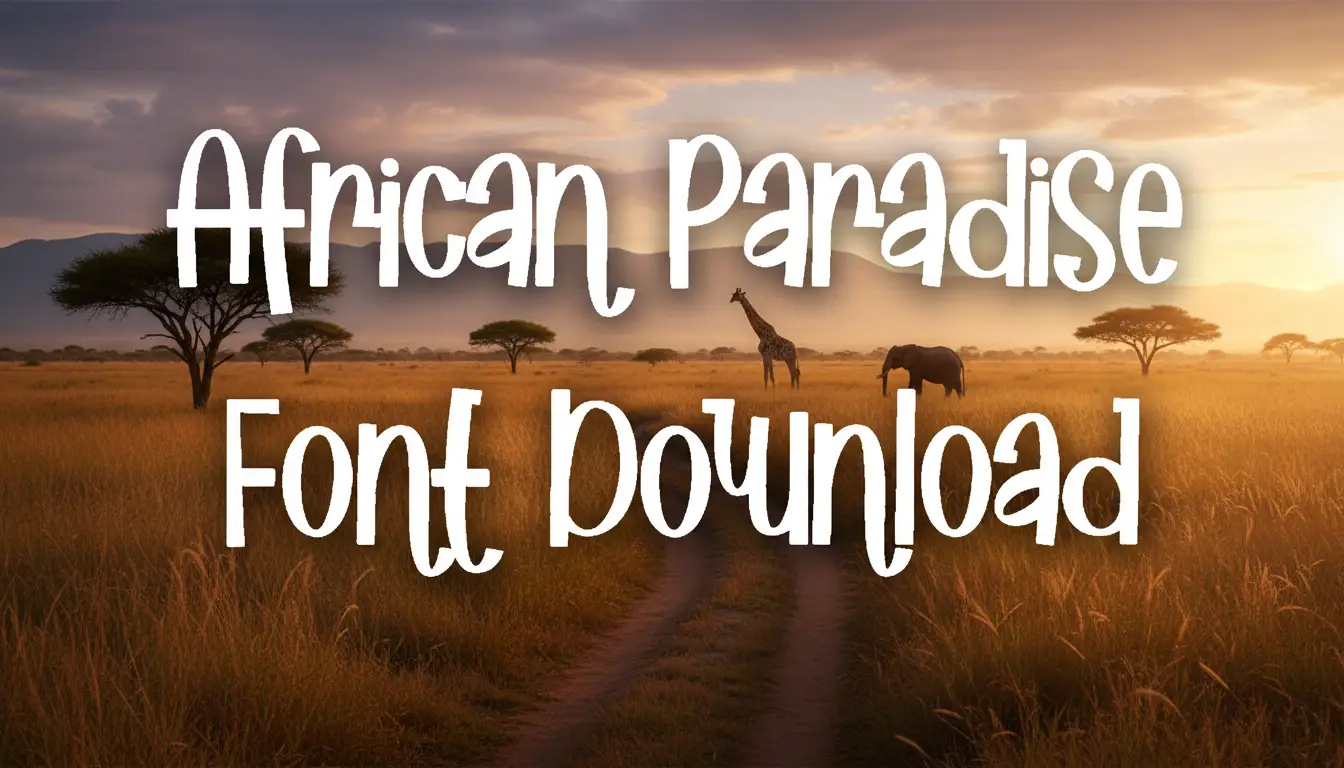
African Paradise Font
African Paradise Font Preview
African Paradise
African Paradise is a comic font created by Gumilar Pratama Adiatna. Its bouncy, rounded letters feel playful, like lettering from a cartoon or a comic book. It's a free download, and you can try it with your own text in the preview above first.
African Paradise Font Details
What You Can Type With African Paradise
You get every letter from A to Z in both cases and all the numbers from 0 to 9, which means African Paradise can handle full sentences, dates and prices. Everyday marks like &, !, ? and @ are there too. Thanks to its accented letters, it also works for Spanish, French, German, Portuguese and Italian, not just English.
Where African Paradise Works Best
Think of African Paradise for comic strips, speech bubbles and playful headings. Cartoon fonts are great for short, fun lines. If you place it over a busy photo, add a thick outline or a drop shadow so it stays readable.
Does African Paradise support accented letters?
Yes. African Paradise includes the accented letters needed for Spanish, French, German, Portuguese and Italian, so it works for more than just English.